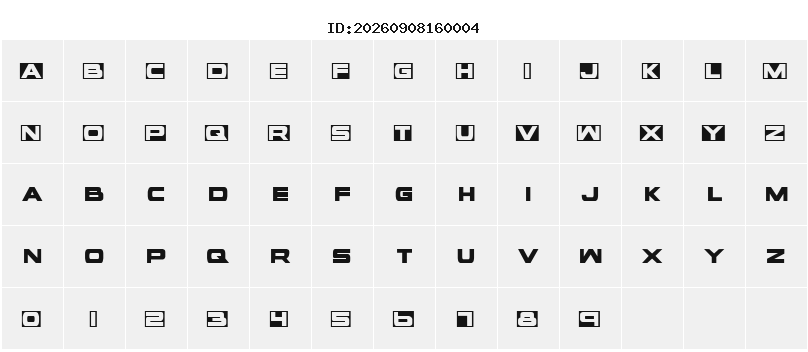
• Font Name: voxBOX
• Full Font Name: voxBOX
About voxBOX.ttf
voxBOX.ttf is a modern, elegant sans-serif font designed for ultimate readability and visual harmony. Perfect for branding, headlines, web design, and print materials.